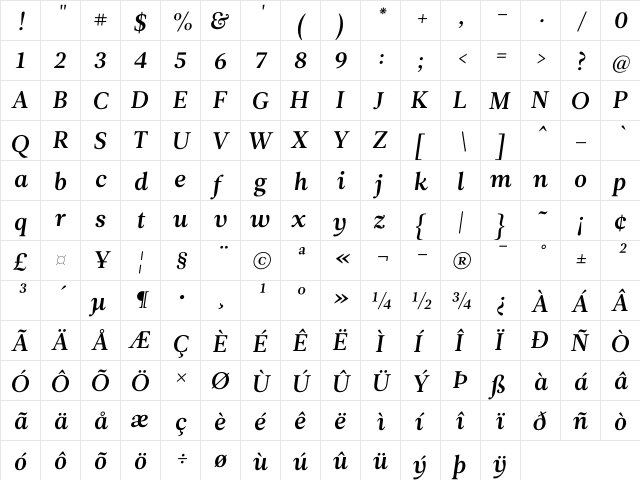
Leitura News Italic 3
| Foundry | Dino dos Santos _DSType |
| Designer | Dino dos Santos |
Design Context for Leitura News Typeface
Leitura News takes a measured approach to typography — its balanced proportions and neutral character make it a reliable workhorse for both digital and print work. The dynamic lean of this cut emphasises speed and emphasis in any layout.
Pro Tip: Try Leitura News for annotation and caption copy alongside an upright companion — the contrast in angle creates a dynamic but ordered typographic system.